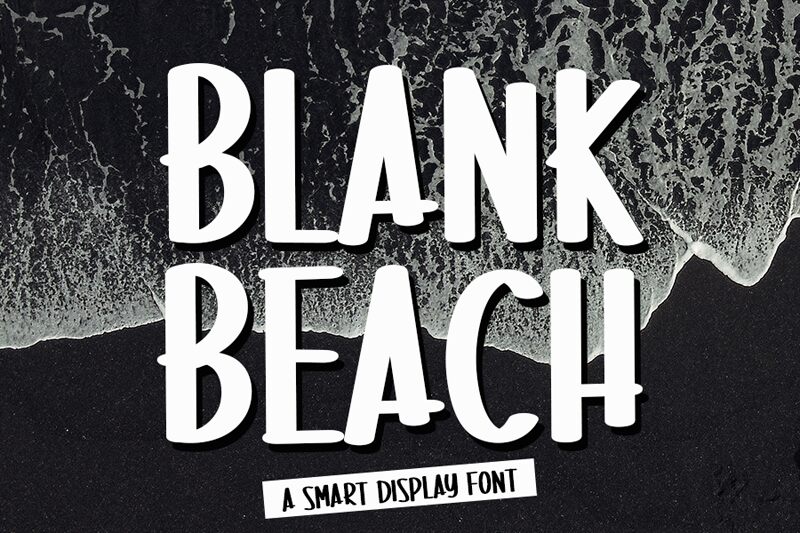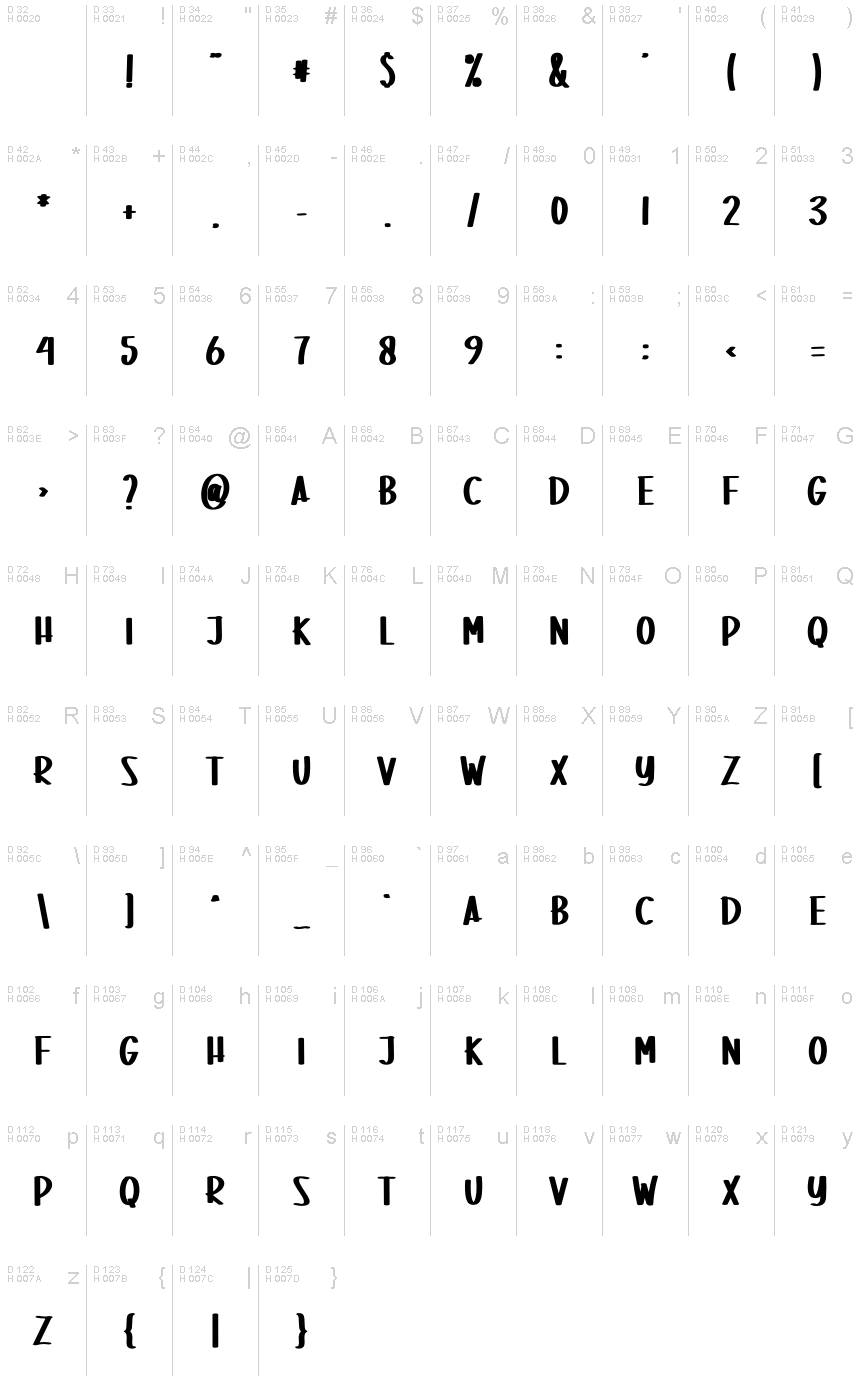
Blank Beach
Blank Beach font, crafted by Creatype Designer, embodies a bold and condensed handwritten style that elegantly merges calligraphic charm with modern appeal. Its striking appearance makes it an ideal choice for creative projects seeking a touch of sophistication and freshness.